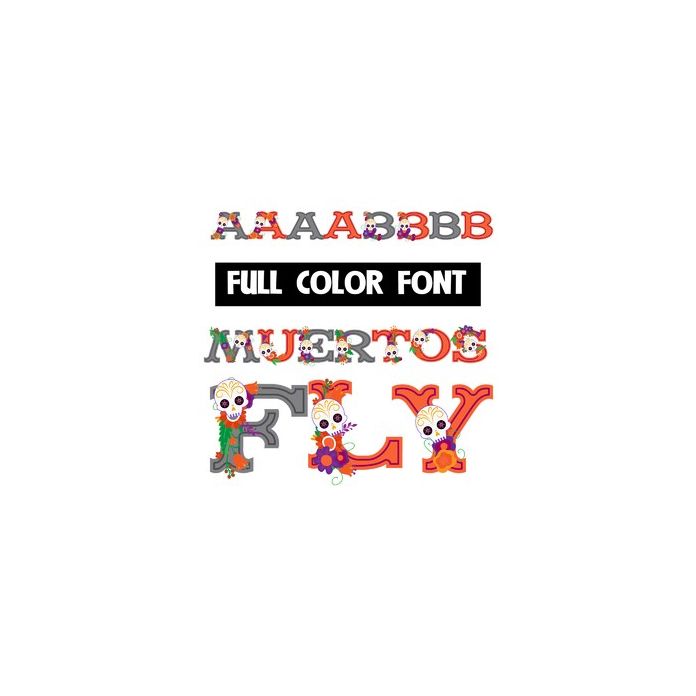
This full-color font features a fun, Halloween color theme, flowers and skulls. There is a secondary alt case for both upper and lower that you can access through your system or Silhouette's glyph map.